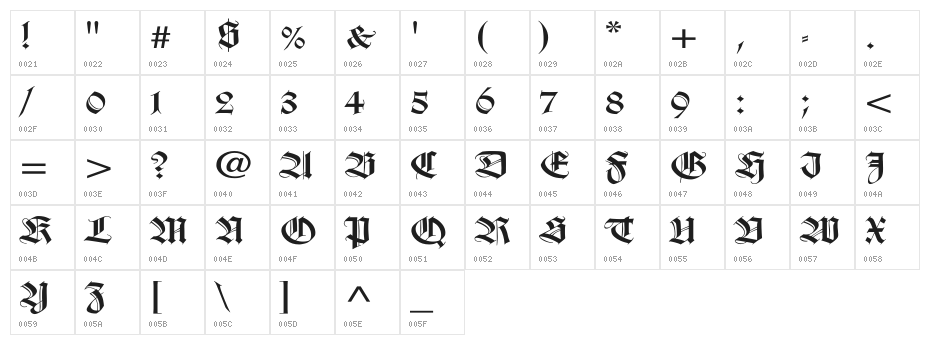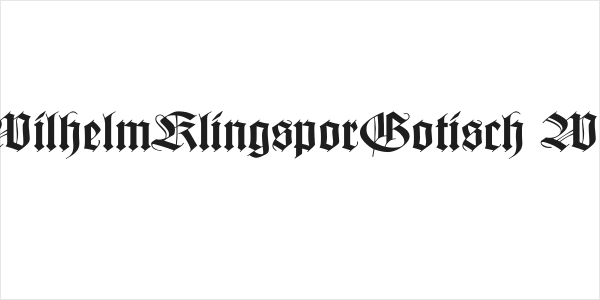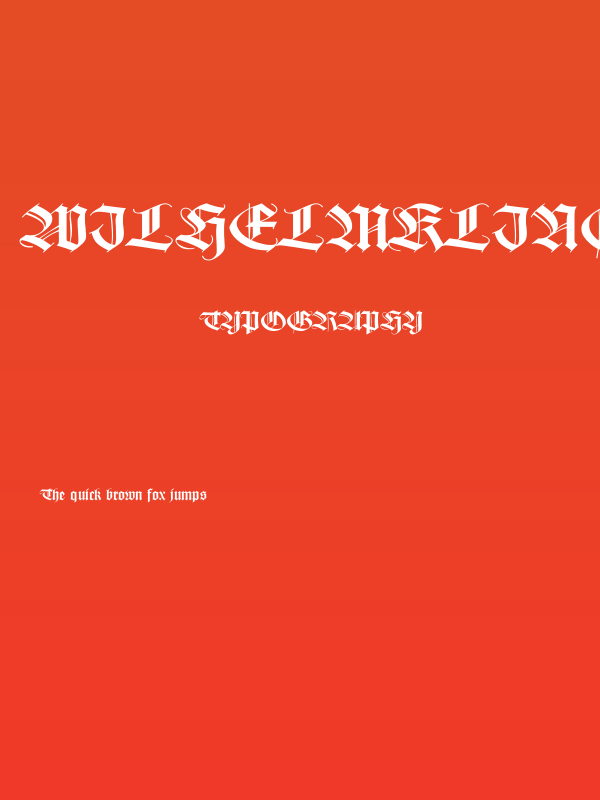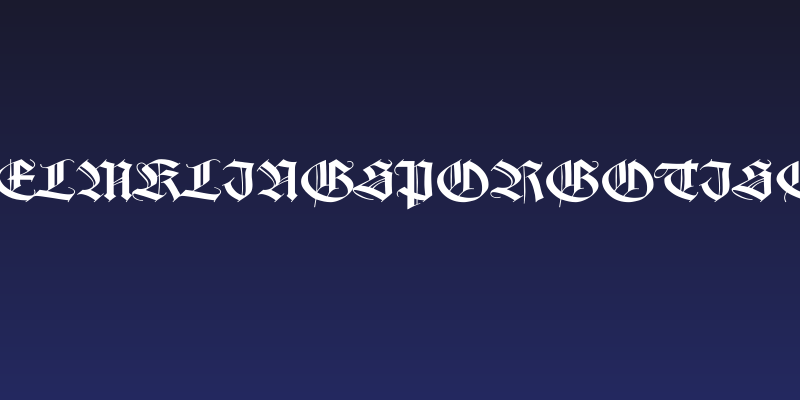
WilhelmKlingsporGotisch Wd Font
WilhelmKlingsporGotisch Wd Description
This font embodies the traditional elegance and intricate detailing of Blackletter typefaces. It features sharp, angular lines with a strong vertical emphasis, creating a dramatic and bold appearance. The uppercase letters are particularly ornate, with elaborate flourishes and pointed serifs that enhance its Gothic aesthetic. The lowercase letters maintain the same level of detail, ensuring consistency throughout the typeface. Numbers and special characters are designed with the same attention to detail, making them cohesive with the overall style. This font is perfect for projects that require a historical or medieval touch, offering a sense of grandeur and formality.
| Proposed Projects | Ideal for historical documents, medieval-themed designs, book covers, and formal invitations. |